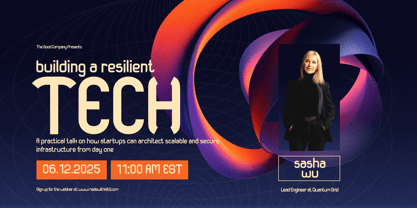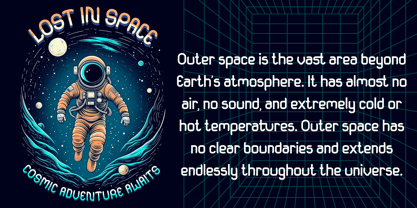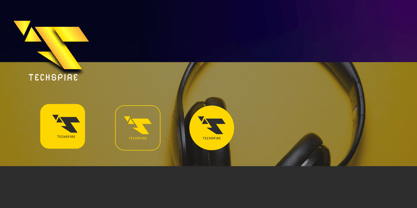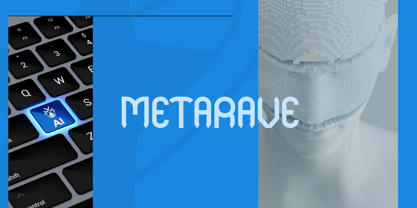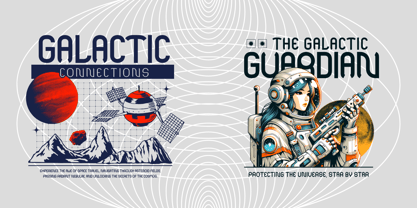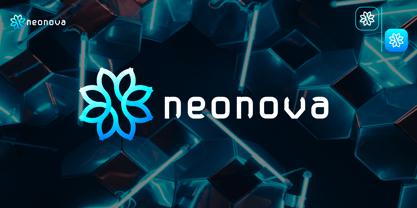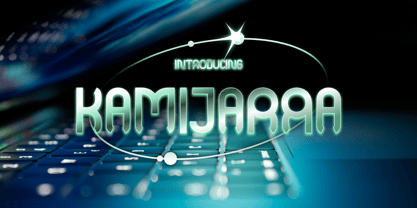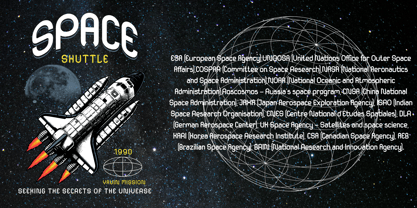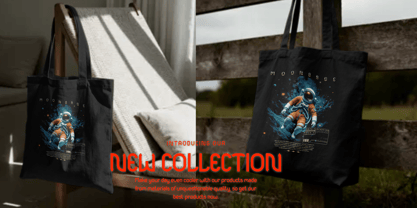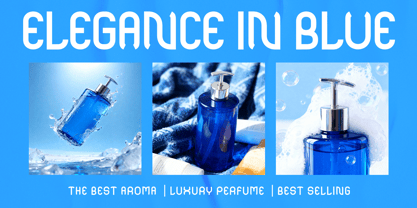
Kamijarra
by Yavin Type
Kamijarra is a modern display font with unique geometric touches, created by Yavin Type Studio. Designed with over 200 glyphs, Kamijarra offers bold, futuristic letterforms while maintaining readability for various design needs. Key Features: Ligatures & Alternates: Automatic character combinations and alternate shapes to enrich your typographic appearance. Metric Kerning: Precise letter spacing for clean and comfortable text layouts. Multilingual Support: Compatible with multiple international languages, expanding your reach globally. Perfect For: Modern branding & logo designs Posters and magazine headlines Technology and startup websites Innovative product packaging Game titles and digital entertainment Advantages: Kamijarra delivers a strong, distinctive visual identity to every project, ensuring your message stands out and looks unique. Ideal for designers seeking creative, futuristic, and professional touches for their visual work. Get Kamijarra now and create amazing designs with Yavin Type Studio!
Designers: Amir Amir
Foundry: Yavin Type